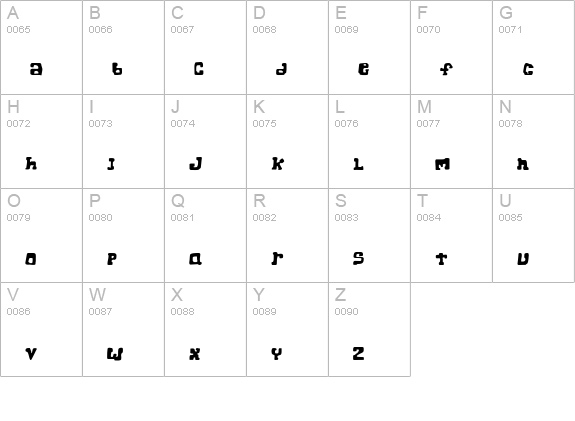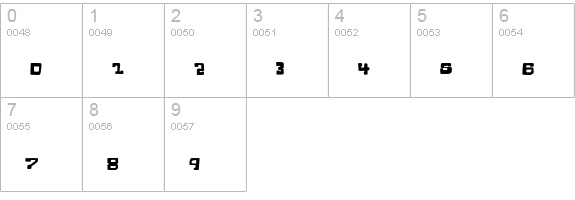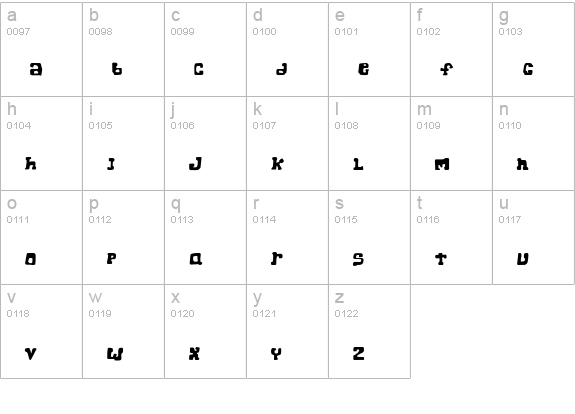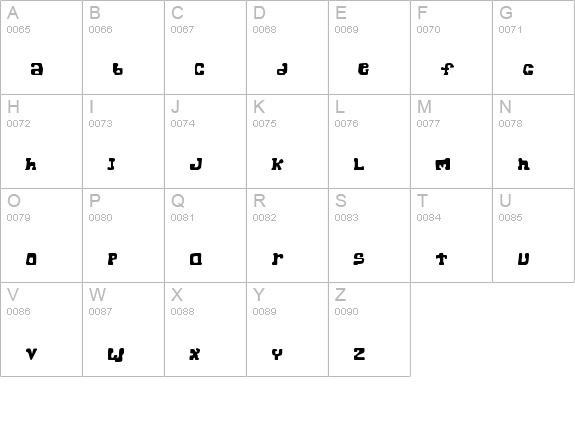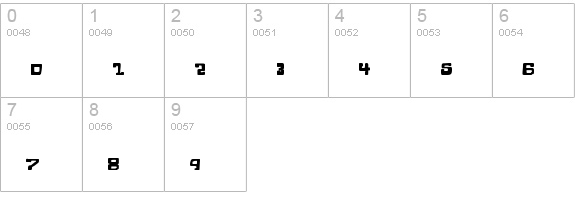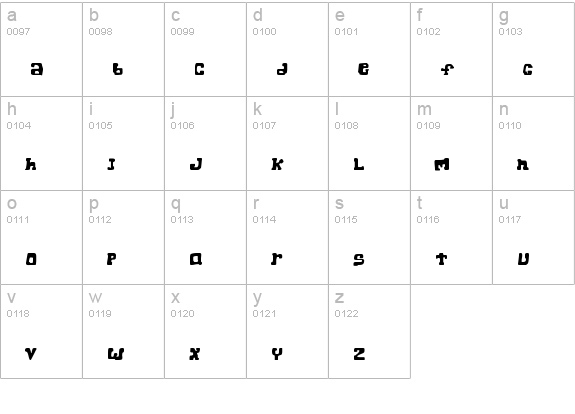
Super Chunk Regular Font Details
Super Chunk Regular is the standard, neutral variant in the Super typeface family \xE2\x80\x94 well suited to general body text, paragraphs, and standard typographic work.
Super Chunk Regular font is a charming and unique typeface that brings a touch of playfulness to your designs. With its bold and chunky letterforms, this font is perfect for making a statement or adding a fun twist to any project. Whether you're creating posters, logos, or social media graphics, Super Chunk Regular will grab attention and leave a lasting impression. And the best part? Super Chunk Regular font is completely free to download at FontsMarket.com. That's right, you can easily access this eye-catching font without breaking the bank. So why wait? Add a dose of personality to your designs with Super Chunk Regular today!